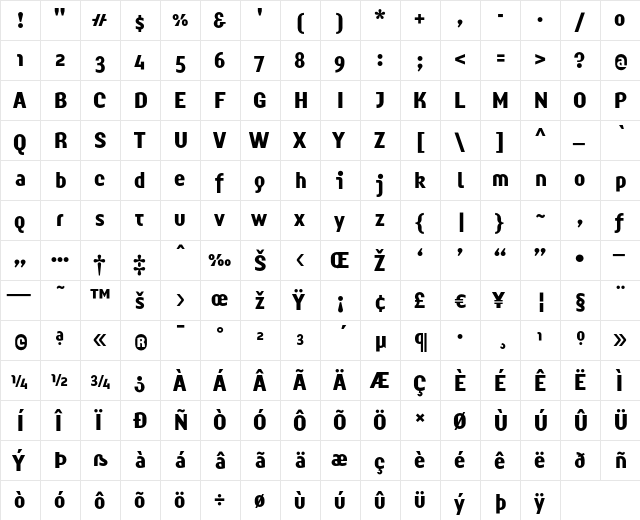
OgilveBold Regular
Design Context for OgilveBold Typeface
OgilveBold is a composed and adaptable typeface that performs quietly and consistently across a wide range of design contexts. Its bold stroke weight gives it real presence on the page.